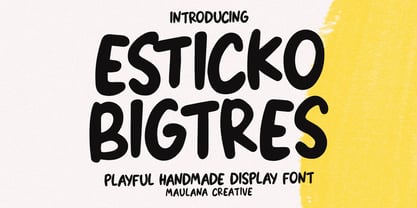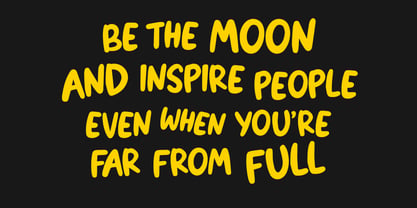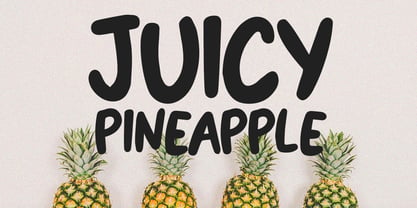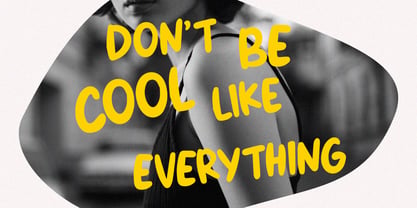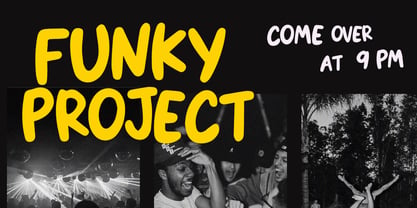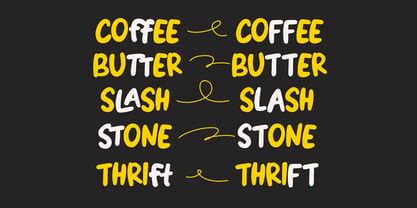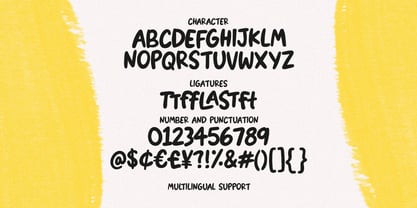
MC Esticko Bigtres
by Maulana Creative
The MC Esticko Bigtres Font Family was designed by Gilang Maulana and published by Maulana Creative. MC Esticko Bigtres contains 1 styles. More about this family
Inject fun and energy into your designs with Esticko Bigtres! Esticko Bigtres is a vibrant, handmade display font designed to bring a friendly and approachable feel to any project. With its bold, rounded strokes and organic "marker-style" aesthetic, this font captures the authentic charm of hand-drawn lettering. Whether you are working on a children’s book, catchy social media graphics, quirky branding, or bold packaging, Esticko Bigtres provides a unique personality that stands out. Its heavy weight ensures maximum readability, making it perfect for headlines, posters, and merchandise.
Designers: Gilang Maulana
Foundry: Maulana Creative